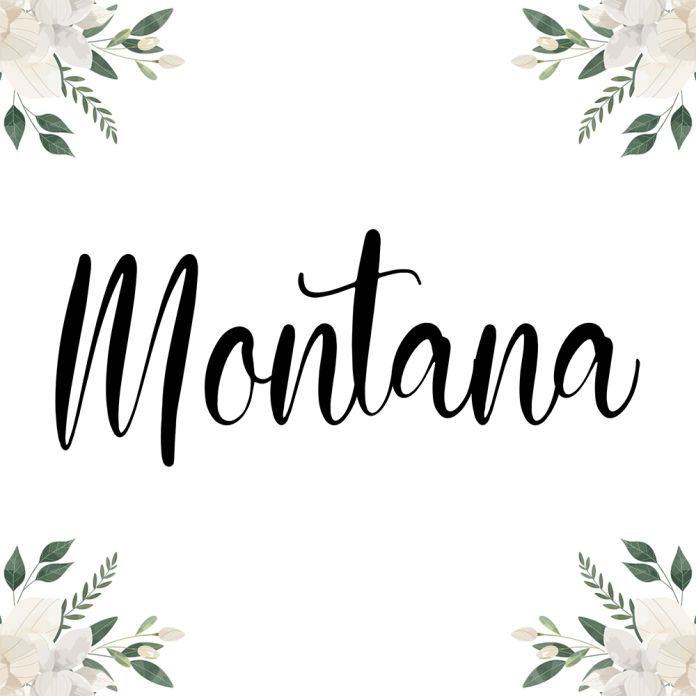
Montana is a handwritten font with a signature style. This gorgeous, dynamic font is both elegant and sporty with tons of style options so you can use it in a wide range of designs and projects.